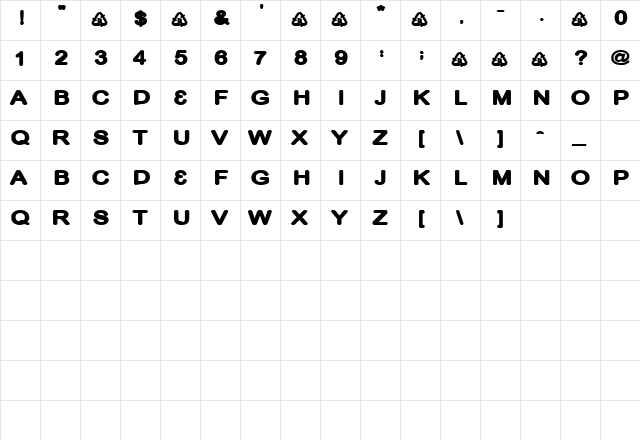
BrokenDoll Regular
Design Context for BrokenDoll Typeface
BrokenDoll is a composed and adaptable typeface that performs quietly and consistently across a wide range of design contexts.
Pro Tip: Use BrokenDoll in both headline and body roles to test its range before committing to a single application.